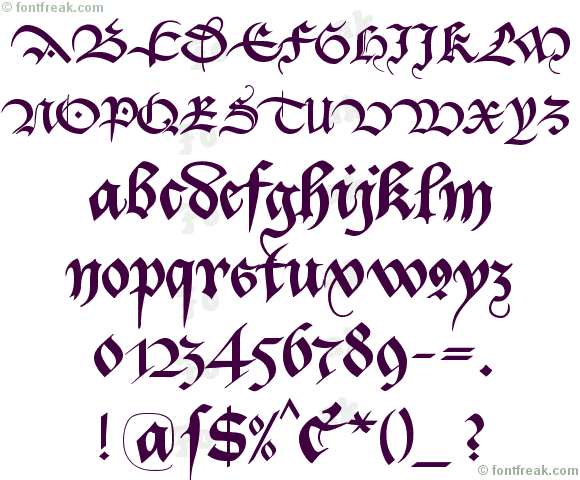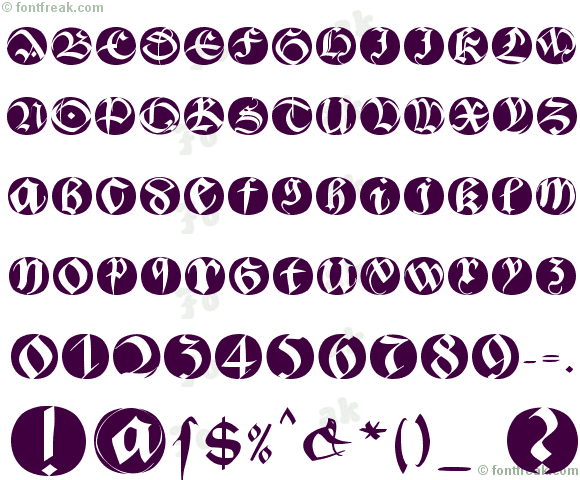
BastardaButtonsBeta
Bastarda-K
About BastardaButtonsBeta
BastardaButtonsBeta is a distinctive decorative font designed by Manfred Klein, falling into the category of display typefaces. This font showcases a unique blend of artistic flair and playful design, making it an eye-catching choice for various creative projects. The stroke weight varies throughout the characters, creating a dynamic visual rhythm. The contrast between the thick and thin strokes adds depth, while the spacing is carefully adjusted to maintain legibility even in more intricate designs. Each letter features decorative elements that contribute to its overall whimsical aesthetic, making it stand out in any application.
BastardaButtonsBeta is particularly suited for use in wedding invitations where a touch of elegance is desired, as well as movie posters that aim to evoke a sense of adventure or whimsy. Its playful nature makes it an ideal choice for restaurant menus, especially those that focus on a casual, family-friendly atmosphere. It can also be effectively used in branding for small businesses, such as boutiques or cafés, where a unique identity is critical. Furthermore, content creators looking to add a distinctive touch to their social media graphics will find this font appealing.
The target audience for BastardaButtonsBeta includes graphic designers seeking to elevate their projects, small business owners aiming for memorable branding, and content creators looking to enhance their visual storytelling. This font stands out due to its unique combination of decorative flair and versatility, allowing it to adapt to various themes while maintaining an unmistakable character. With the BastardaButtonsBeta font free download available, those looking to infuse their work with creative energy can easily access this remarkable typeface, ensuring their designs leave a lasting impression.